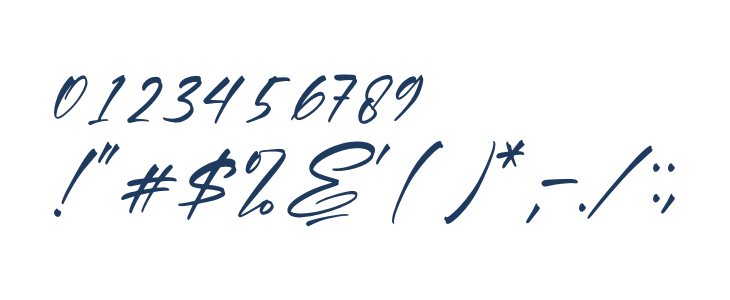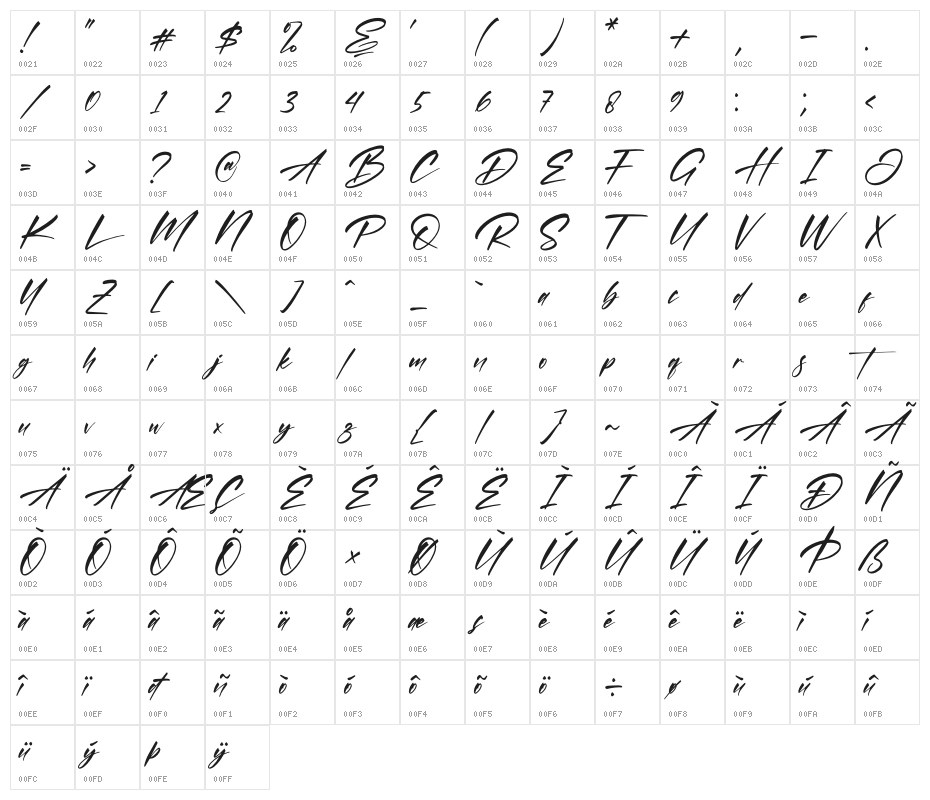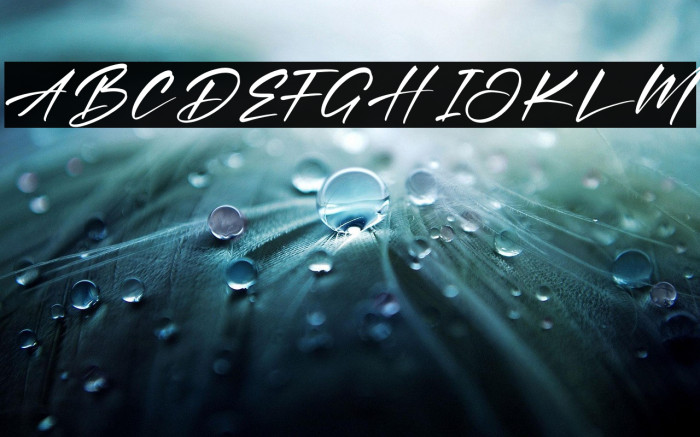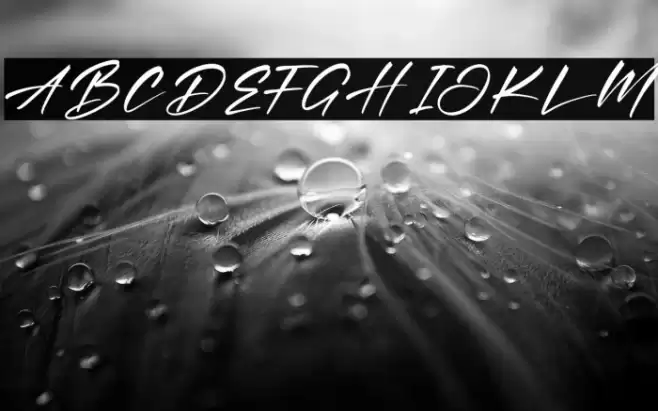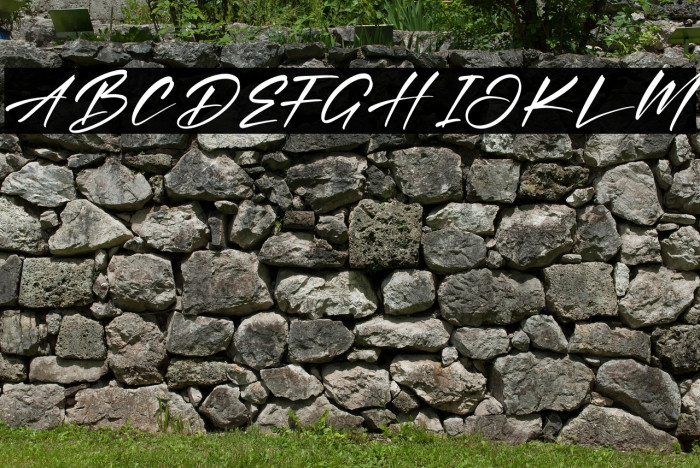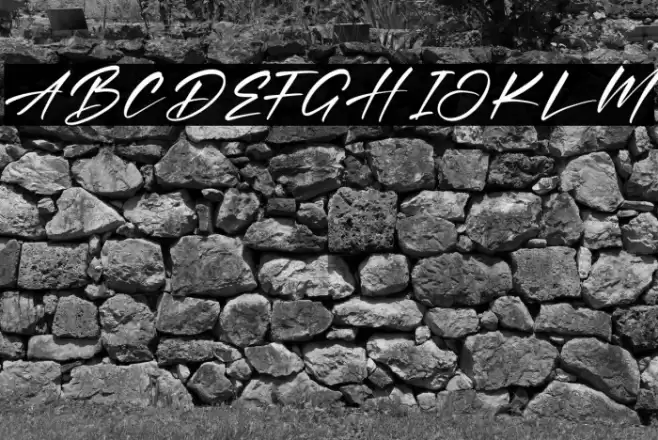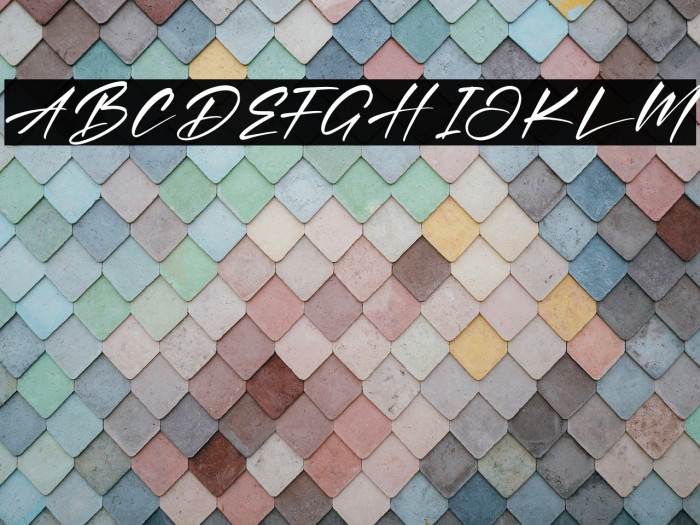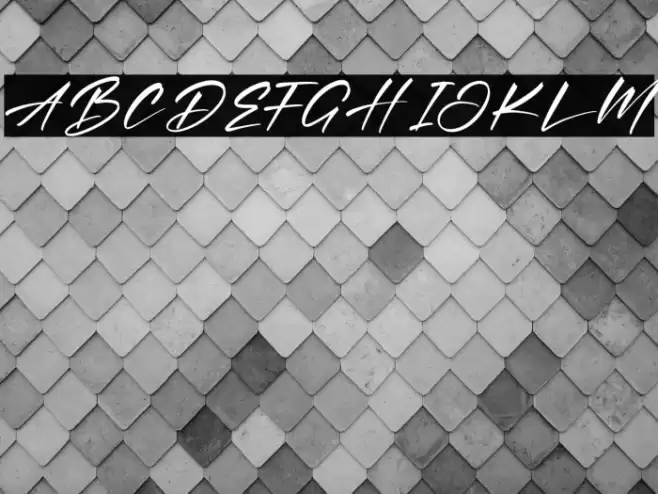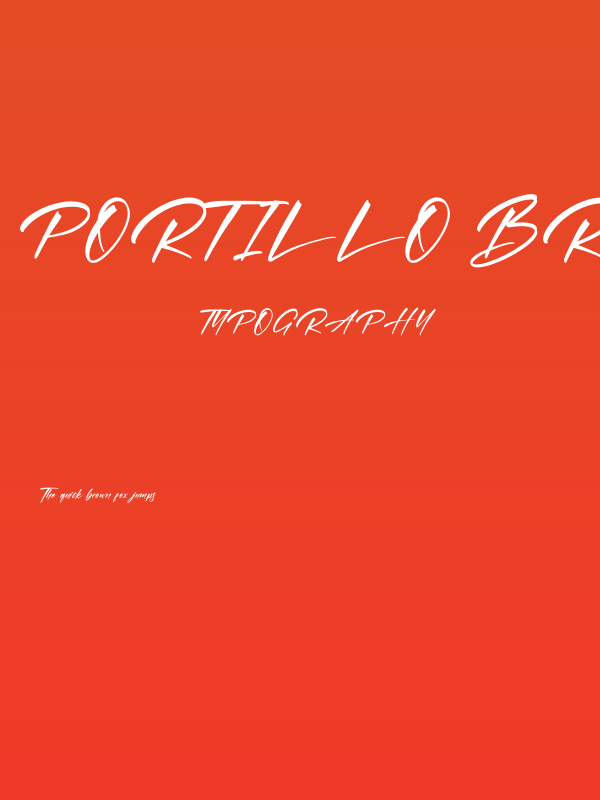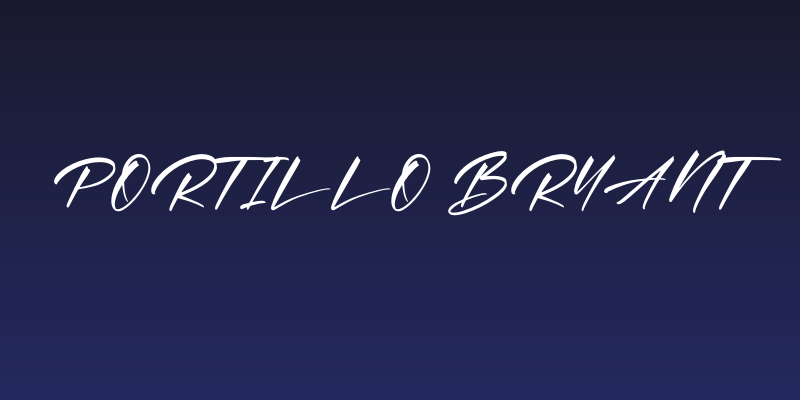
Portillo Bryant Font
Portillo Bryant Description
This font features a dynamic and expressive script style, characterized by fluid, sweeping strokes that convey a sense of elegance and movement. The uppercase letters are bold and prominent, with distinctive flourishes that add a touch of sophistication. The lowercase letters maintain a consistent flow, enhancing readability while preserving the artistic flair. Numbers and special characters are designed with the same attention to detail, ensuring a cohesive look across all elements. The overall design is modern yet timeless, making it suitable for a variety of creative applications.